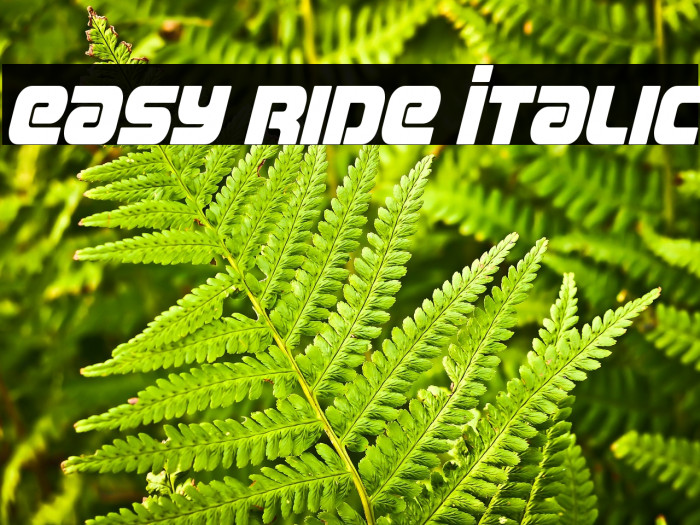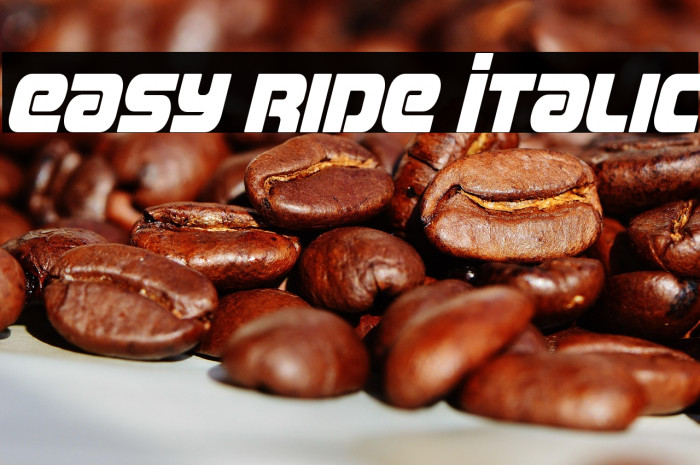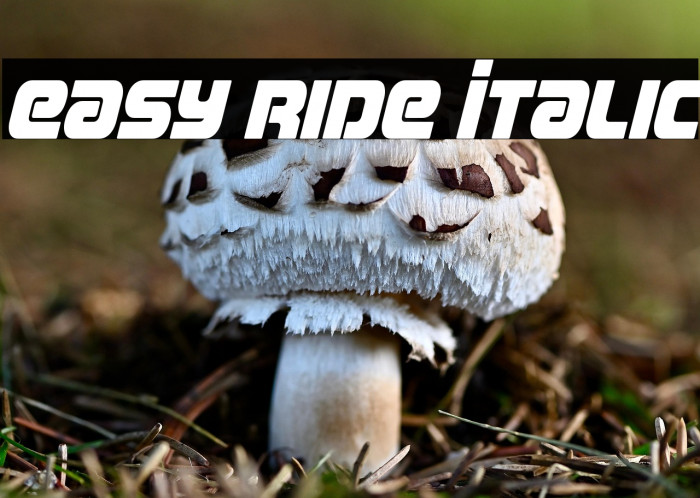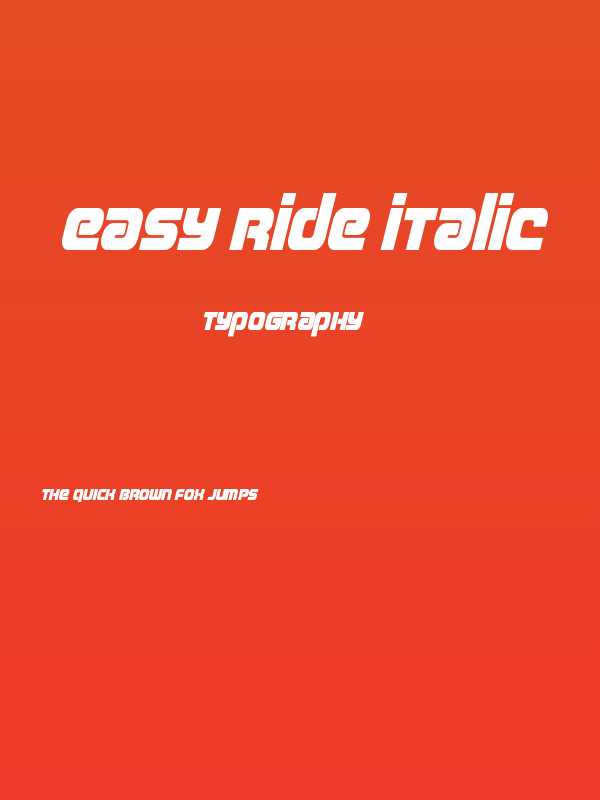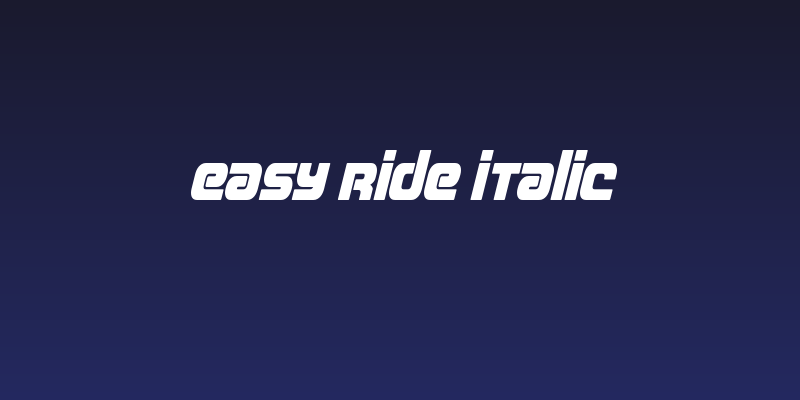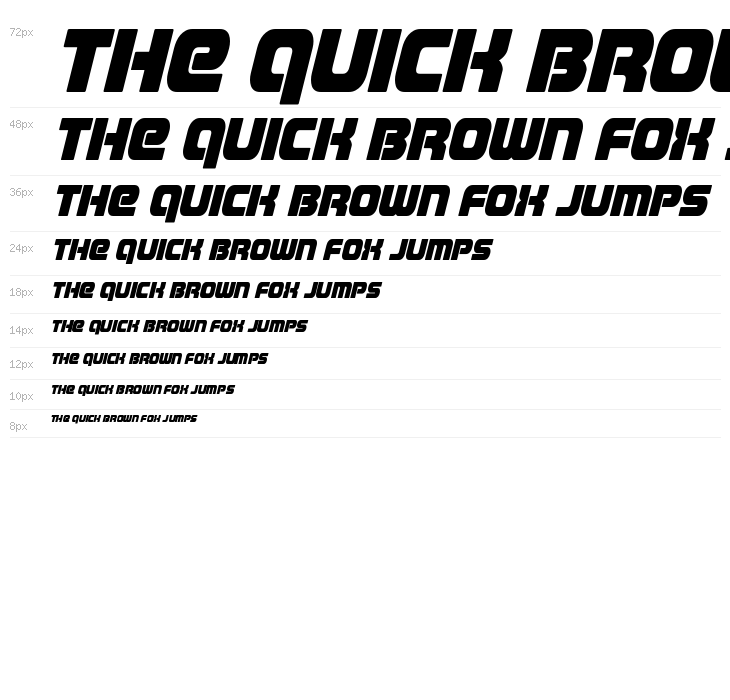
Easy Ride Italic Font
Easy Ride Italic Description
This font exhibits a bold, italicized style with a modern and dynamic appearance. The characters are designed with a forward-leaning slant, giving a sense of motion and speed. The strokes are thick and consistent, providing a strong visual impact. The letters have a geometric structure with sharp angles and clean lines, contributing to a futuristic and sleek look. The numerals and special characters maintain the same bold and italicized characteristics, ensuring uniformity across the typeface. The overall design is suitable for projects that require a contemporary and energetic feel.
| Use Case | Logos, Headlines, Posters |
| Proposed Projects | Ideal for branding, sports team logos, automotive advertisements, and dynamic poster designs. |